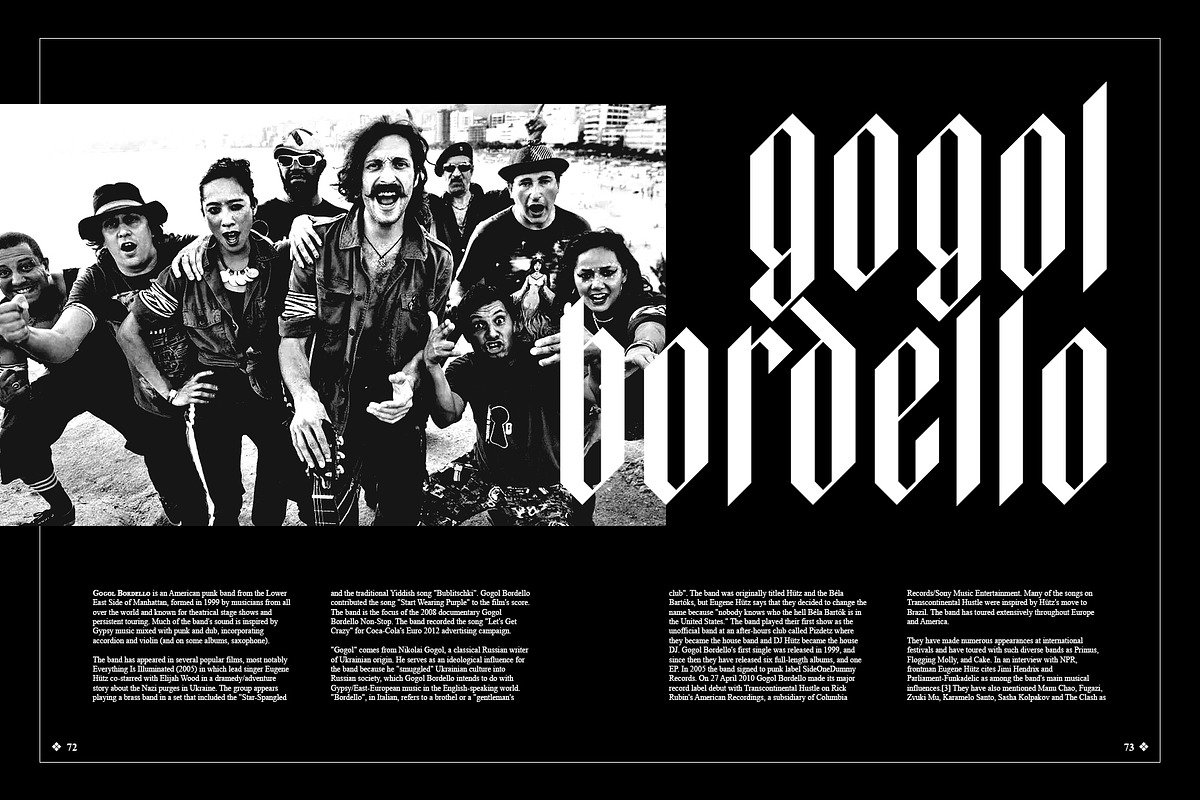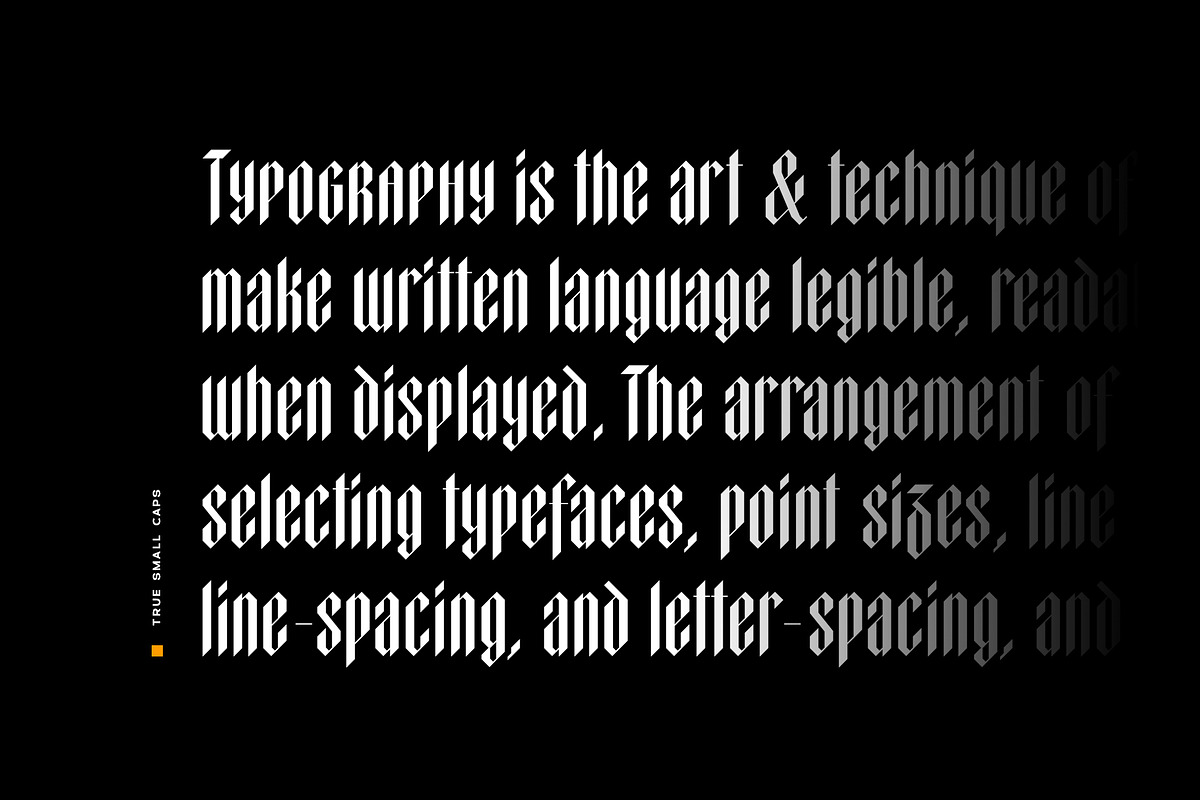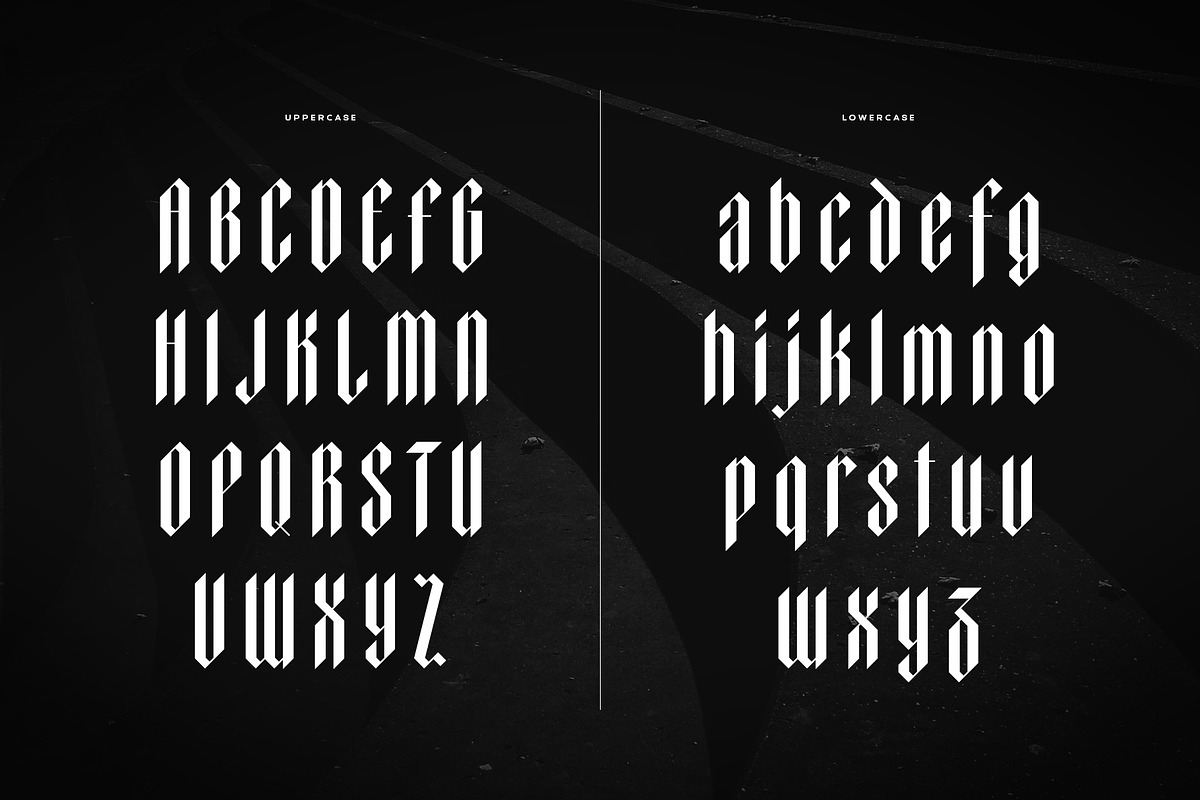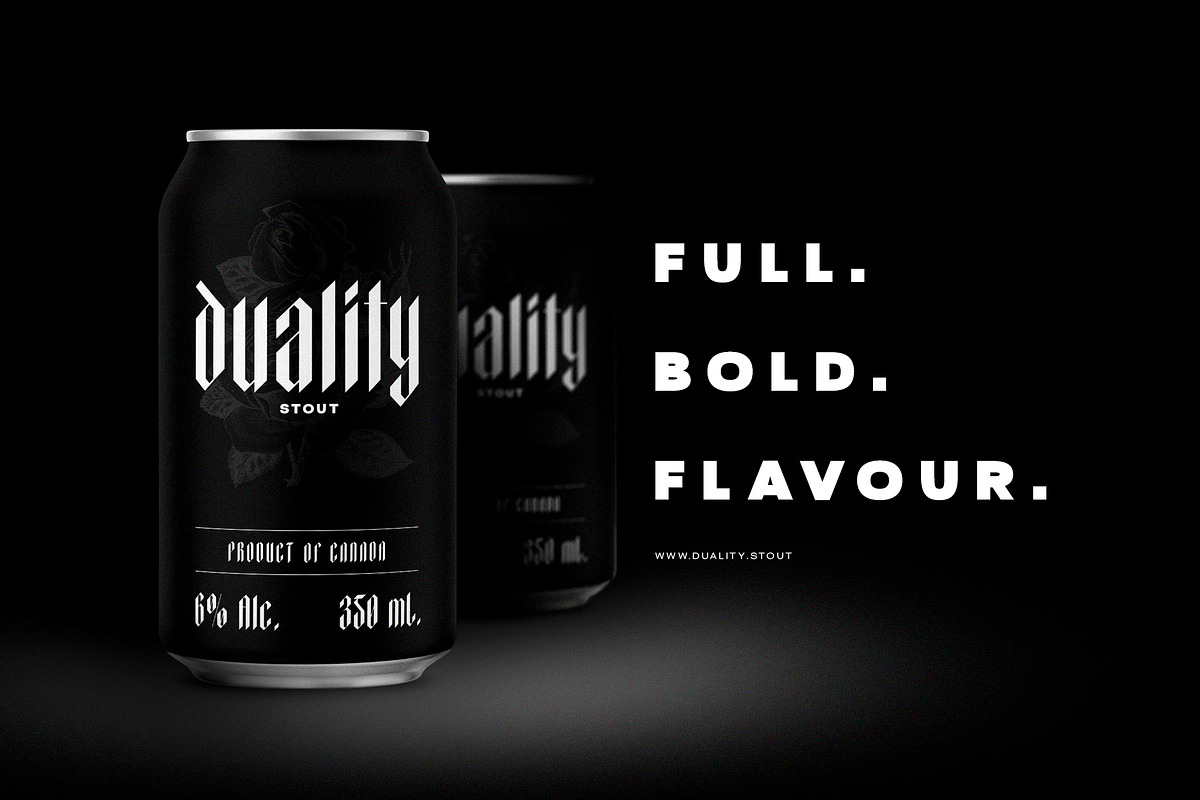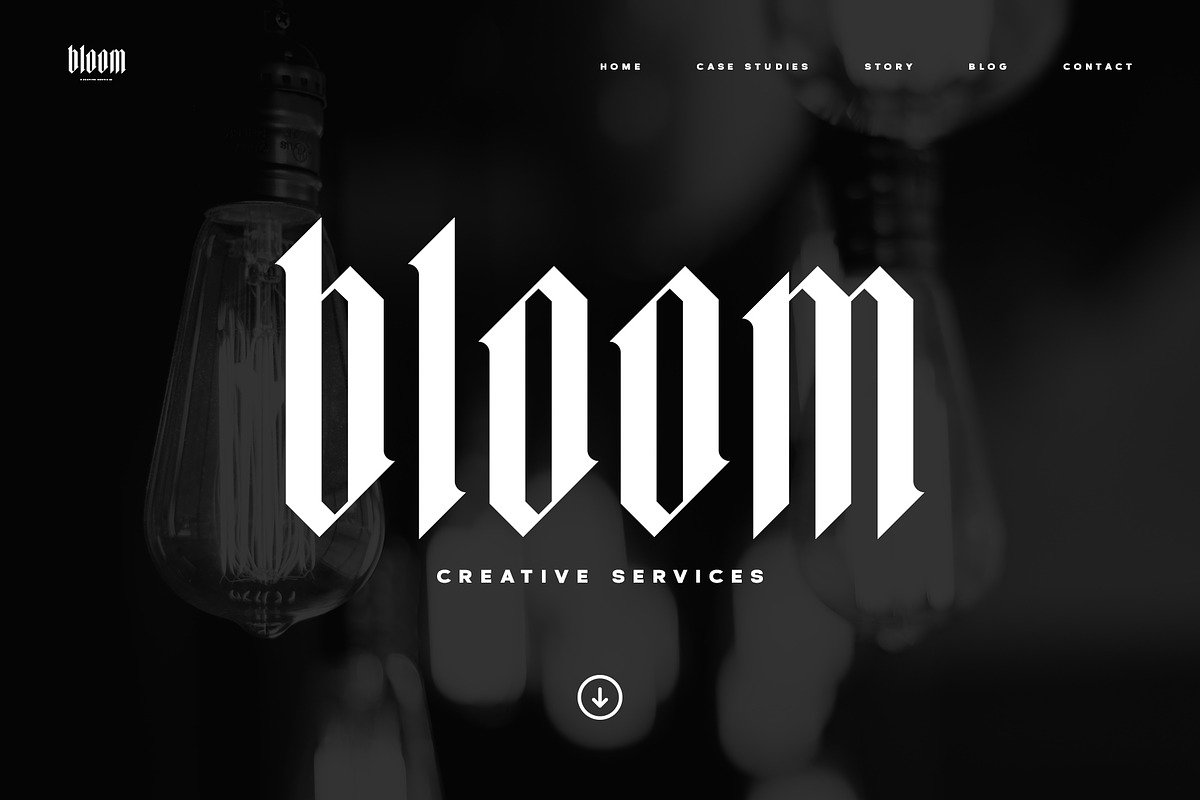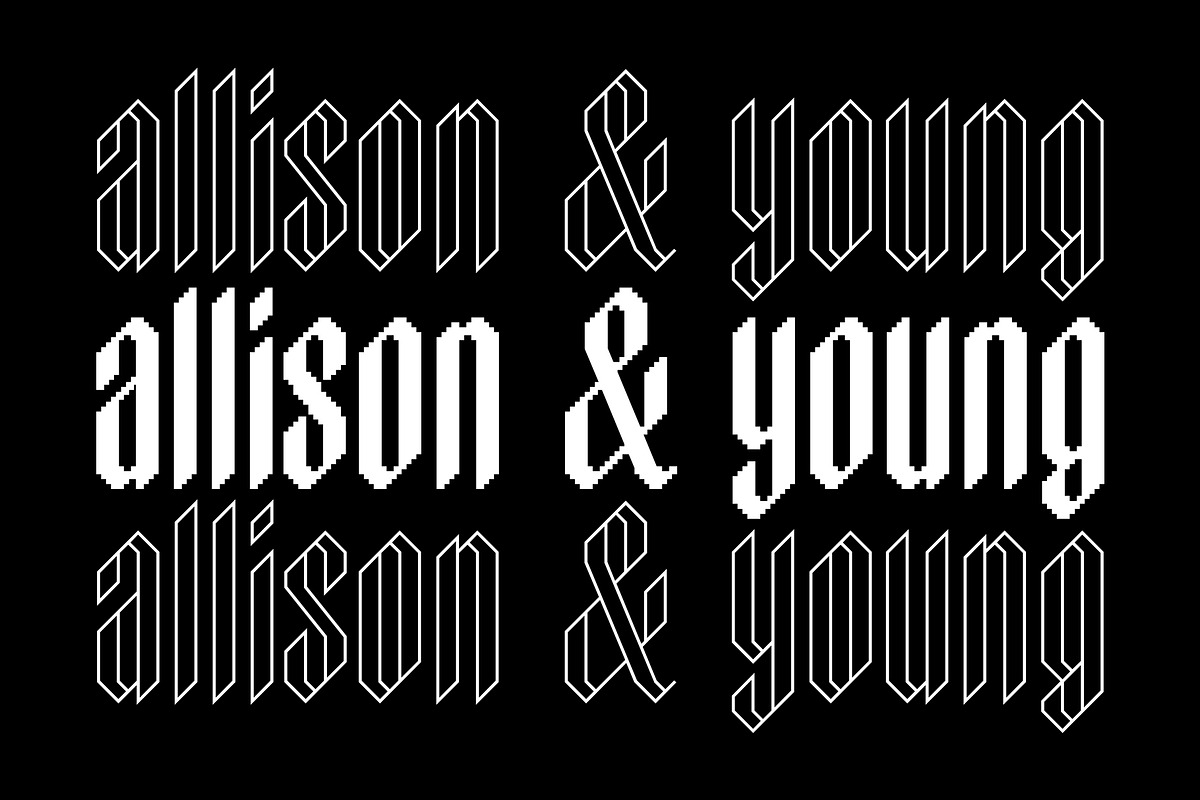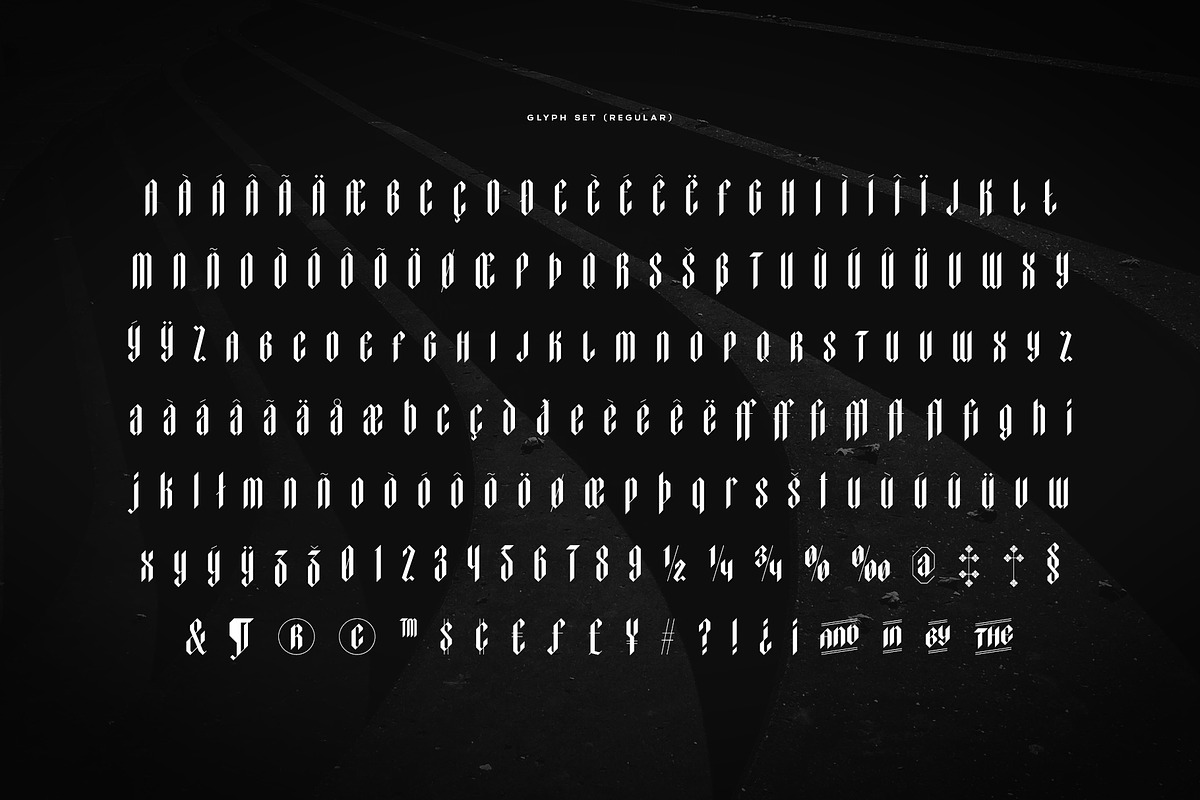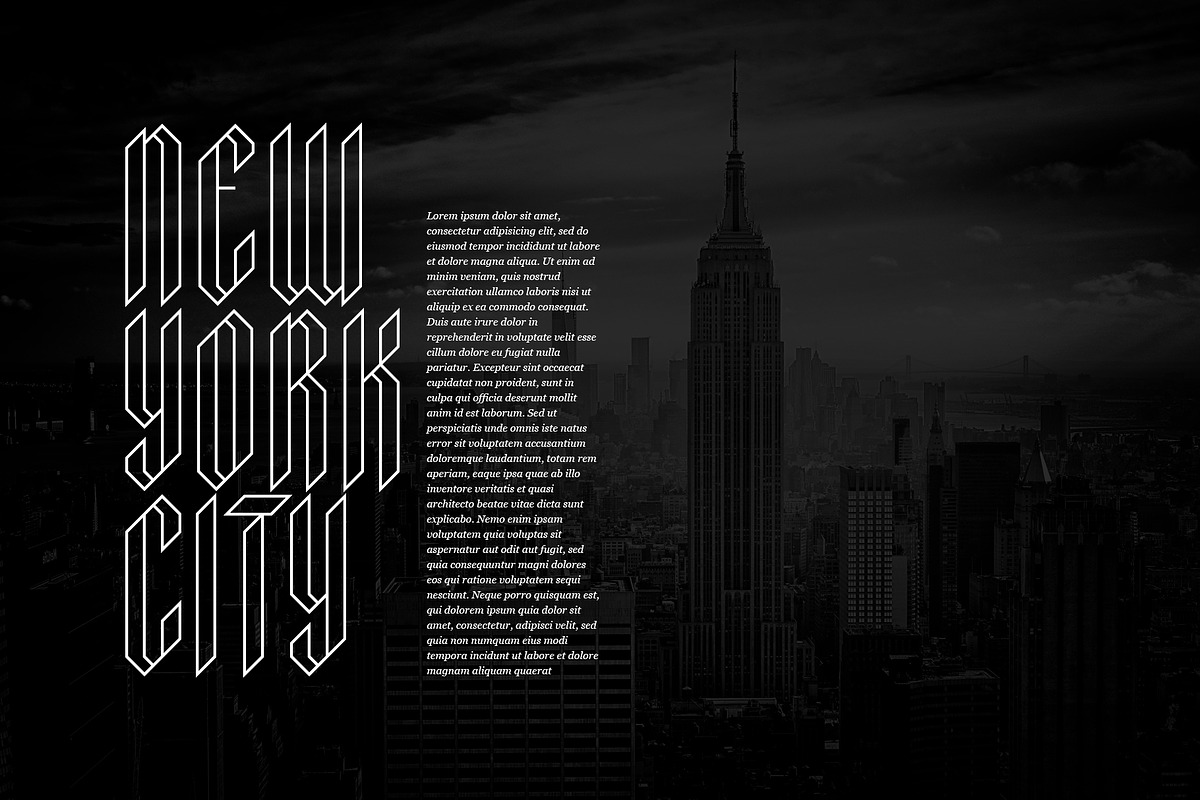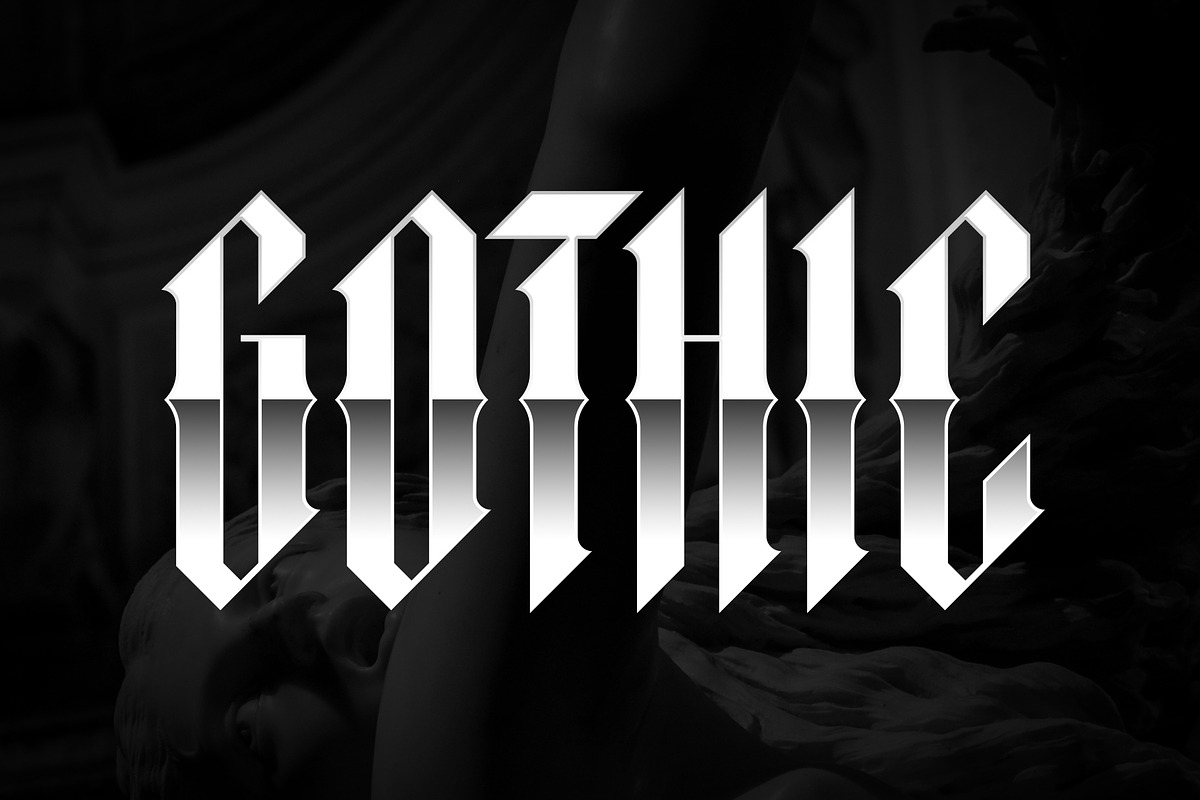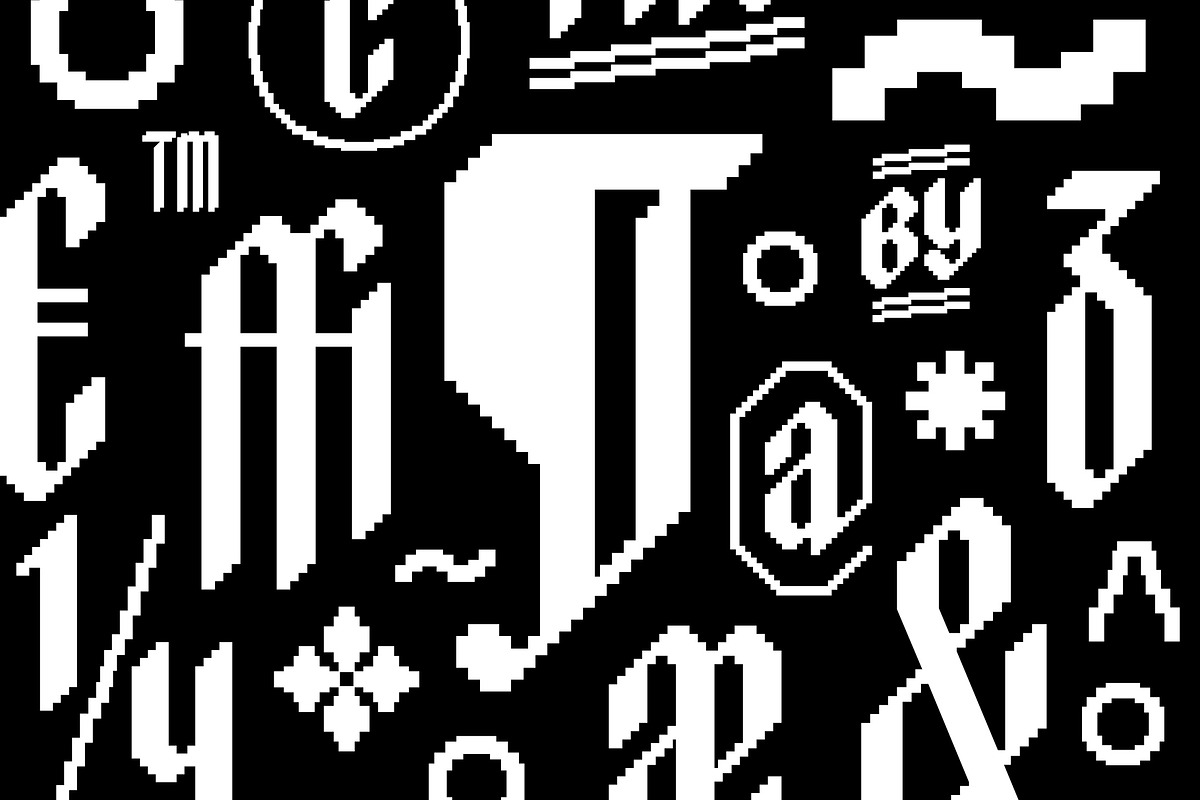
Elmwood Blackletter Display Font
VTC Elmwood is a modernized blackletter font family from Vintage Type Company.
What's old is new again. Elmwood comes in 4 styles, including regular, 8-bit, outline, and spurred. Drawing inspiration from calligraphic techniques of the past, Elmwood strips away any flourishes that would typically be found in a similar textura typeface, and offers a more modern, stylized old english font.
The styles that come included save you a bit of time from having to stylize the regular version yourself, and allow you to tailor the font to more niche and customized projects. Saving time is good, and you're sure to love these options.
VTC Elmwood makes the perfect font for branding & logo projects, package design, title design, print & e-publications, and the list goes on.